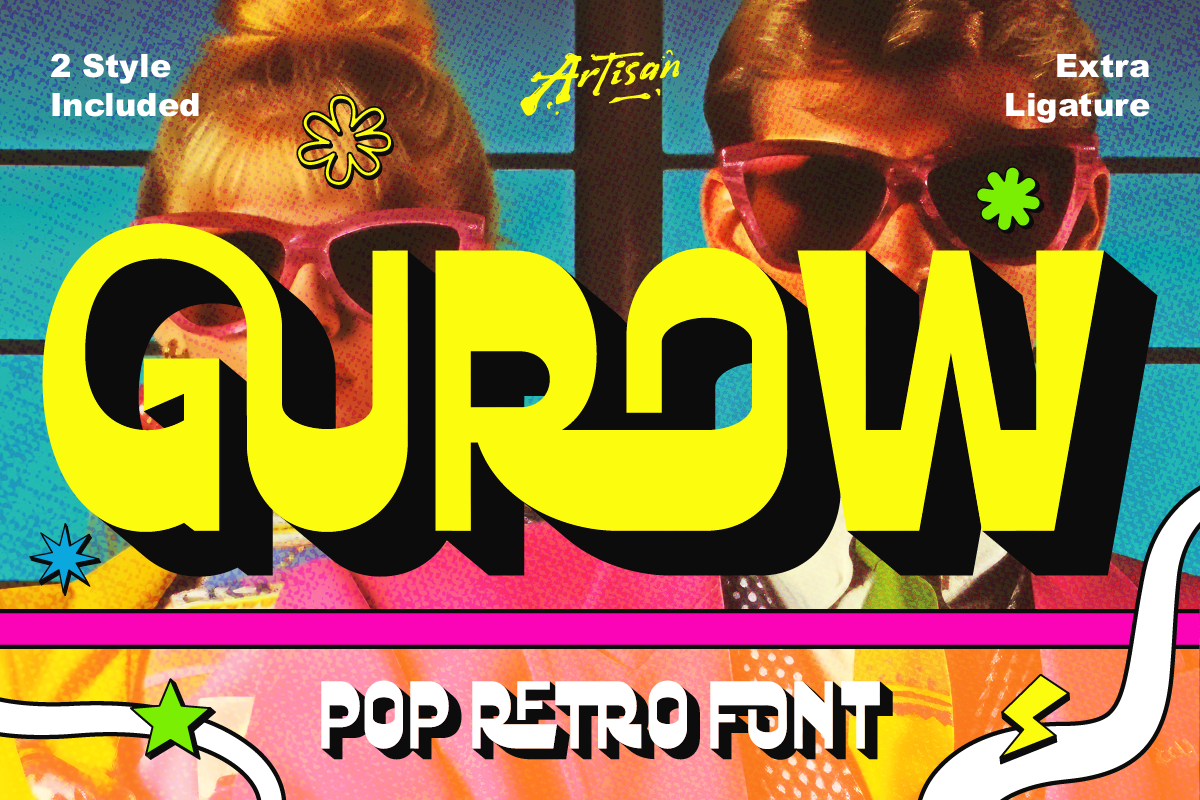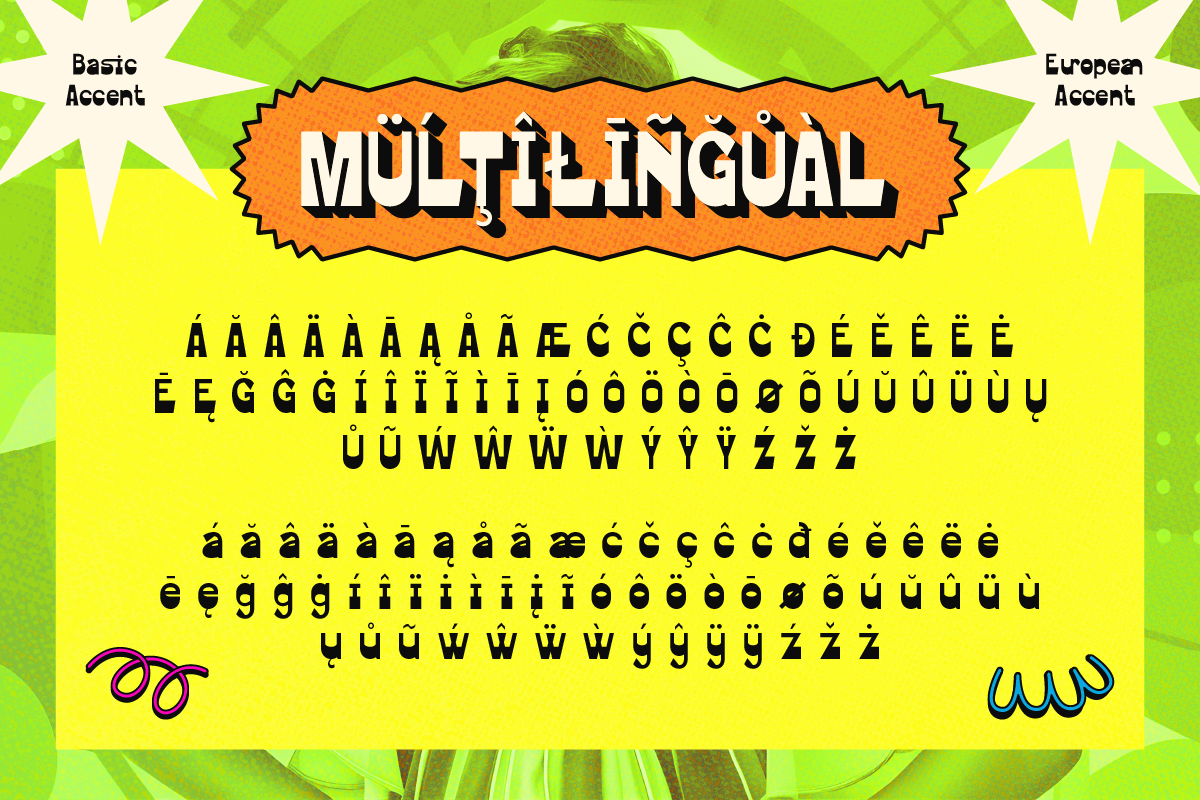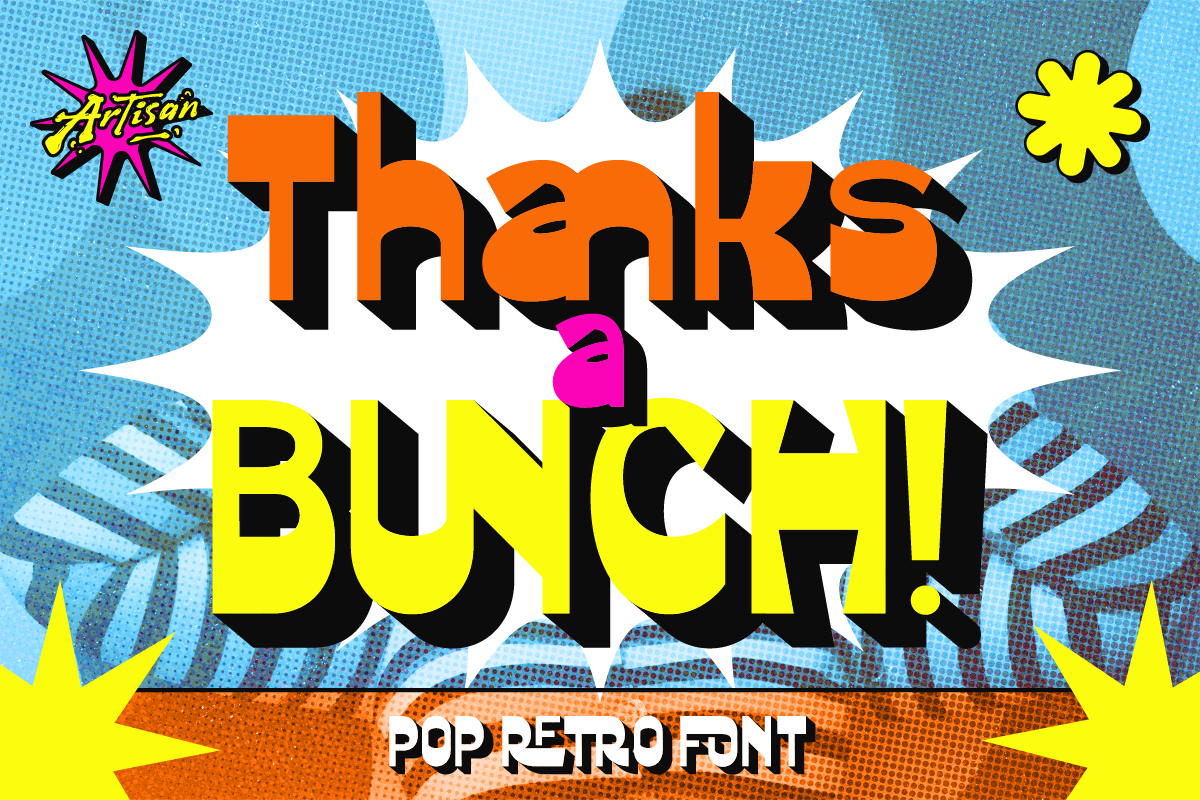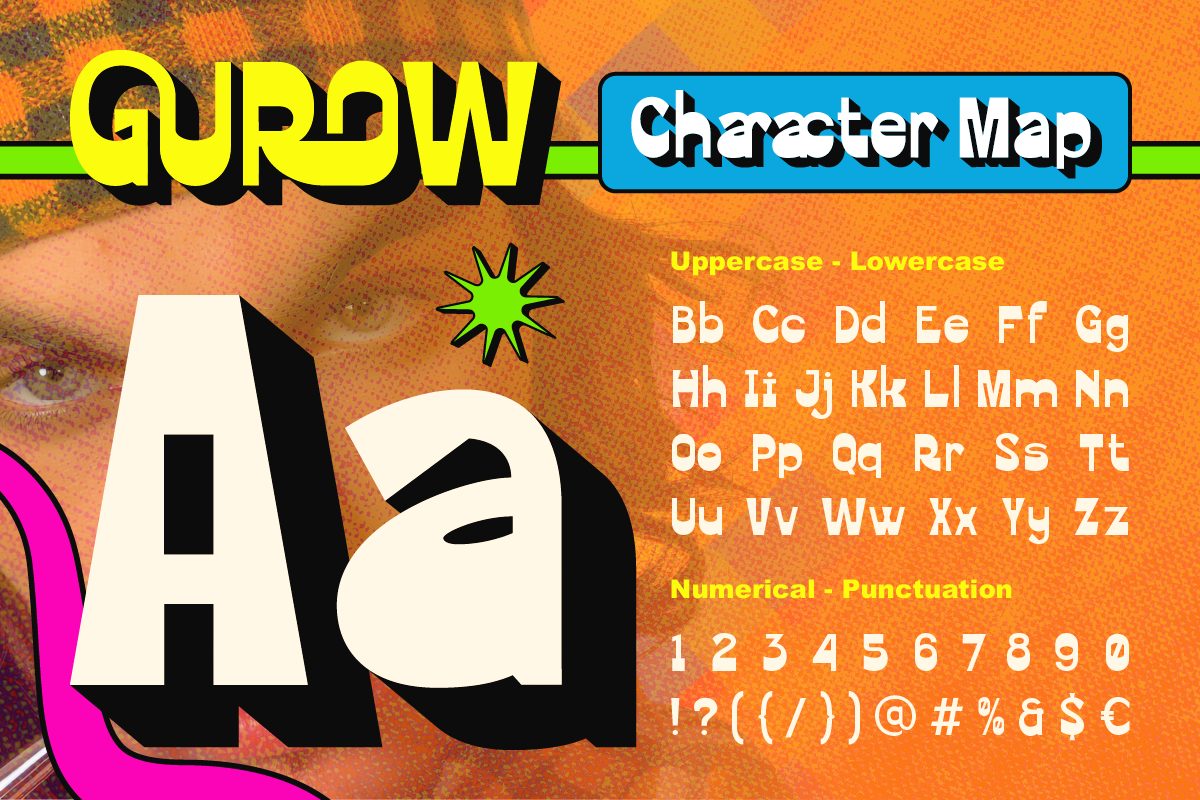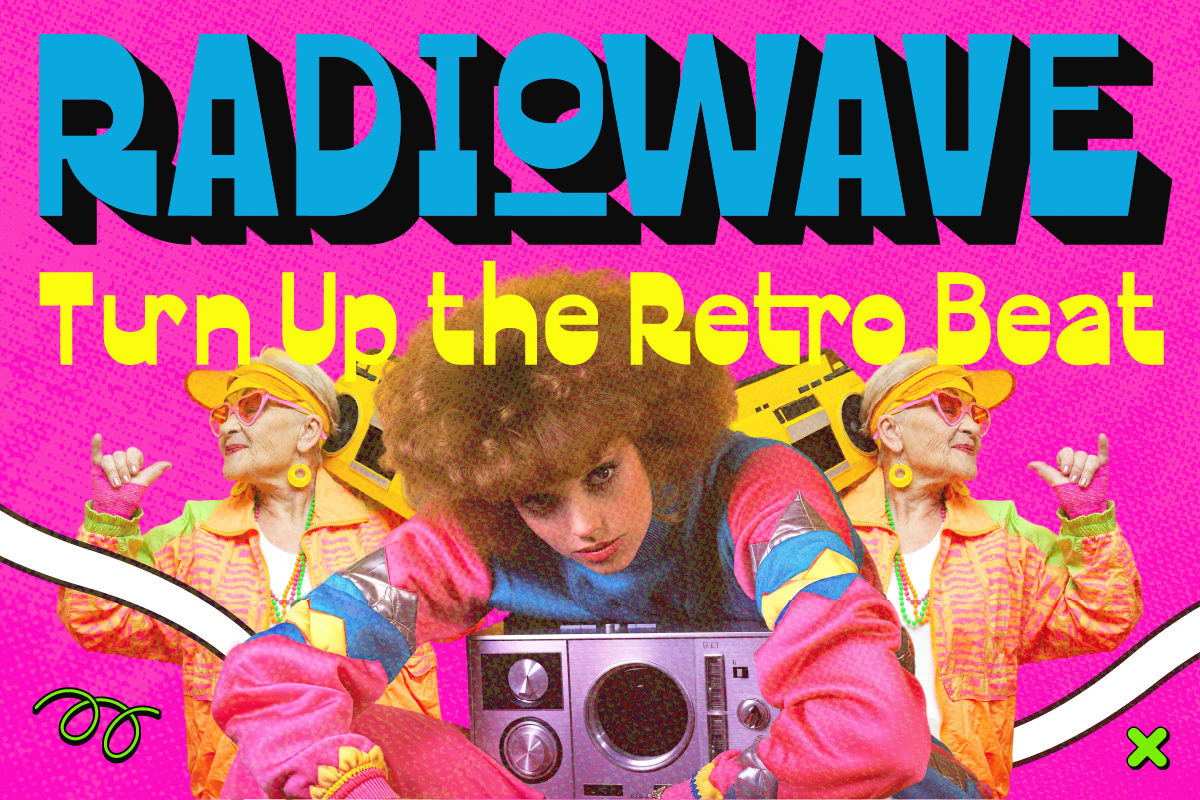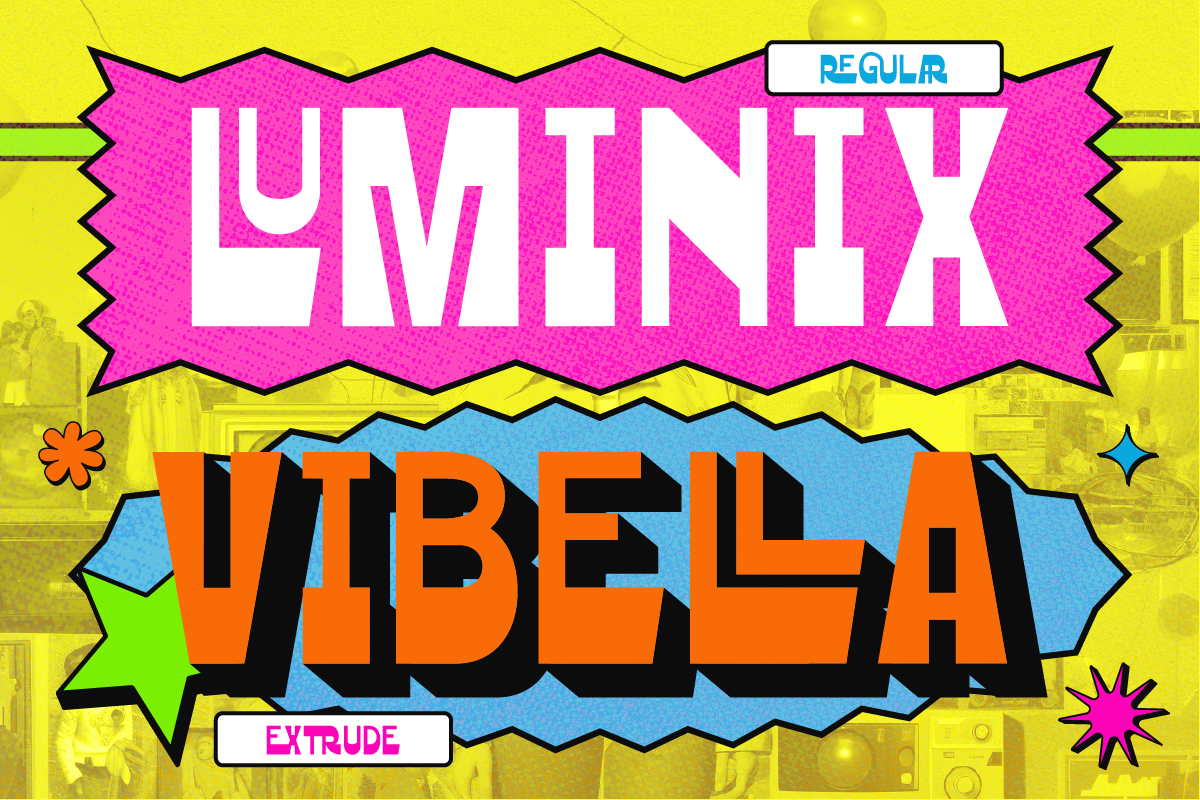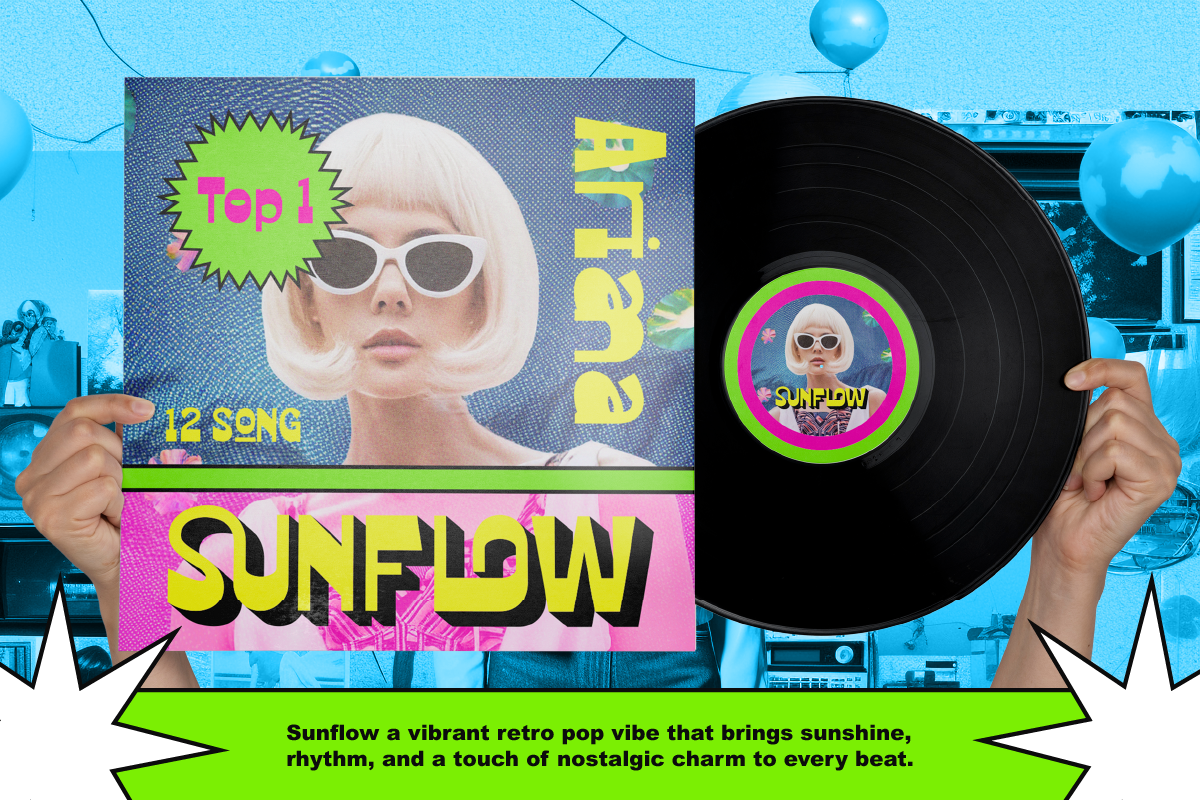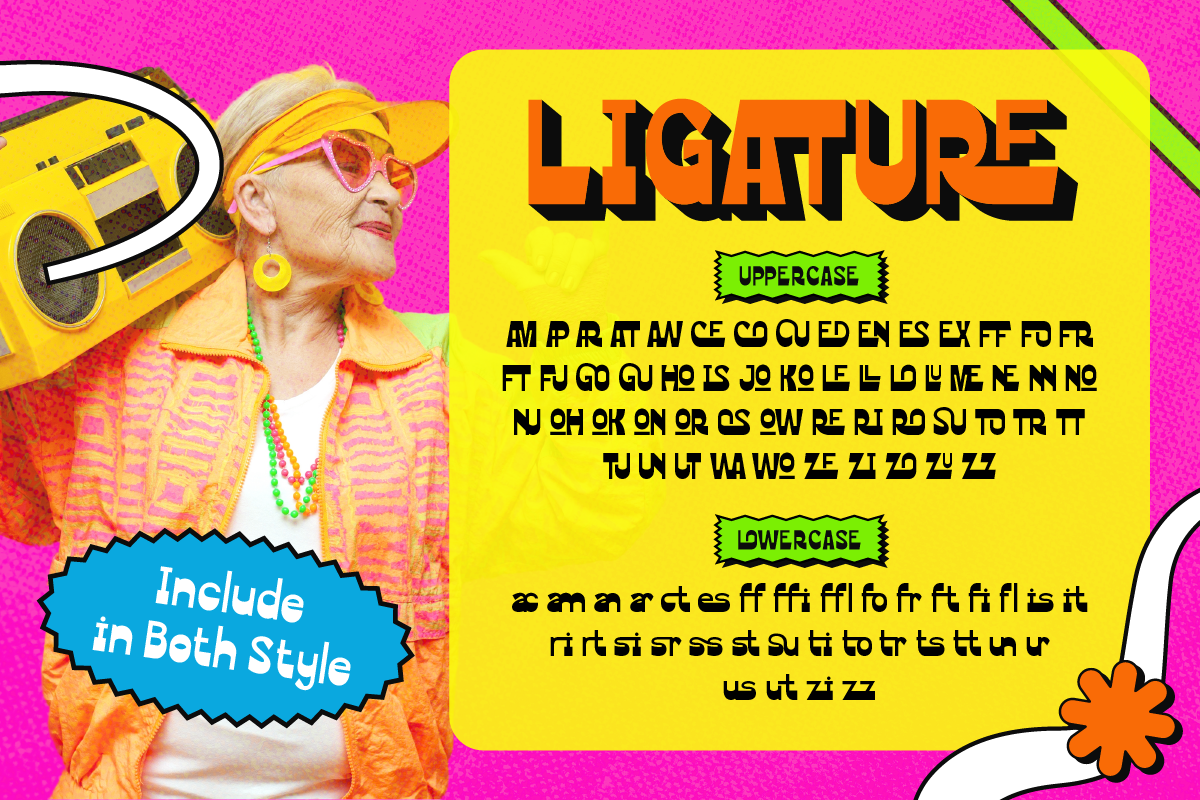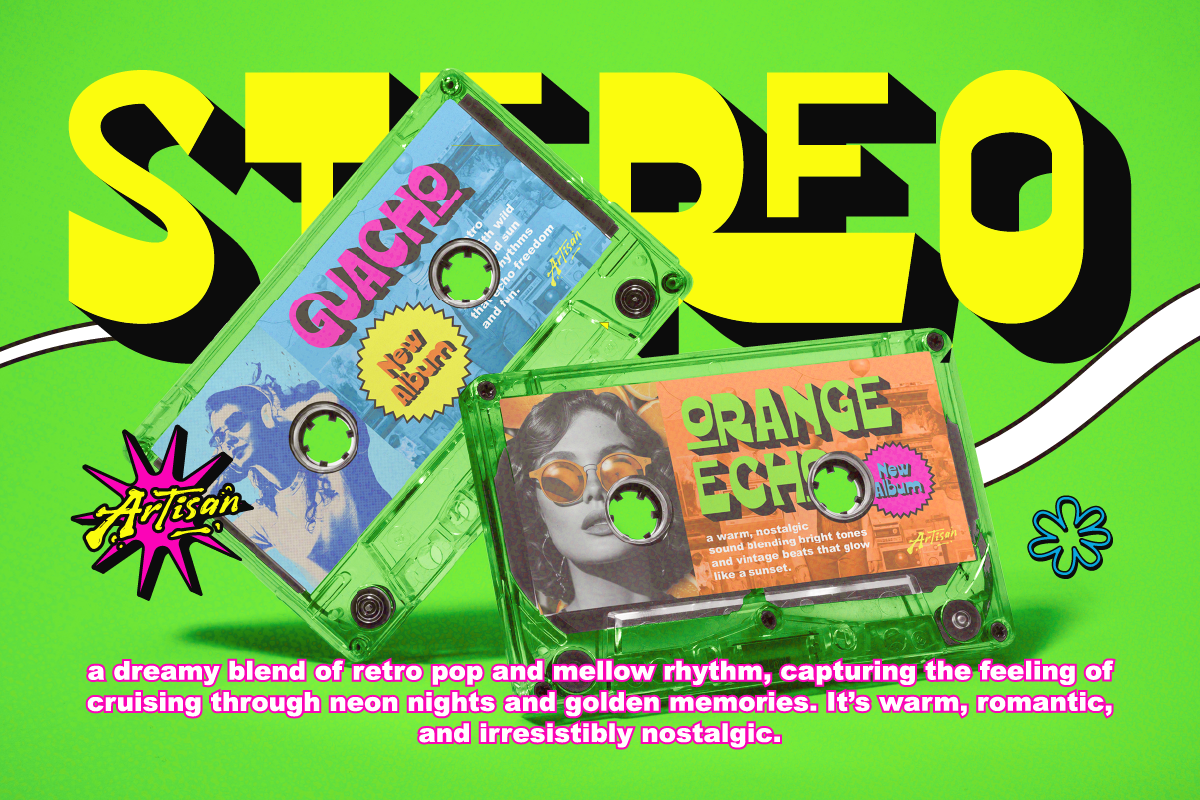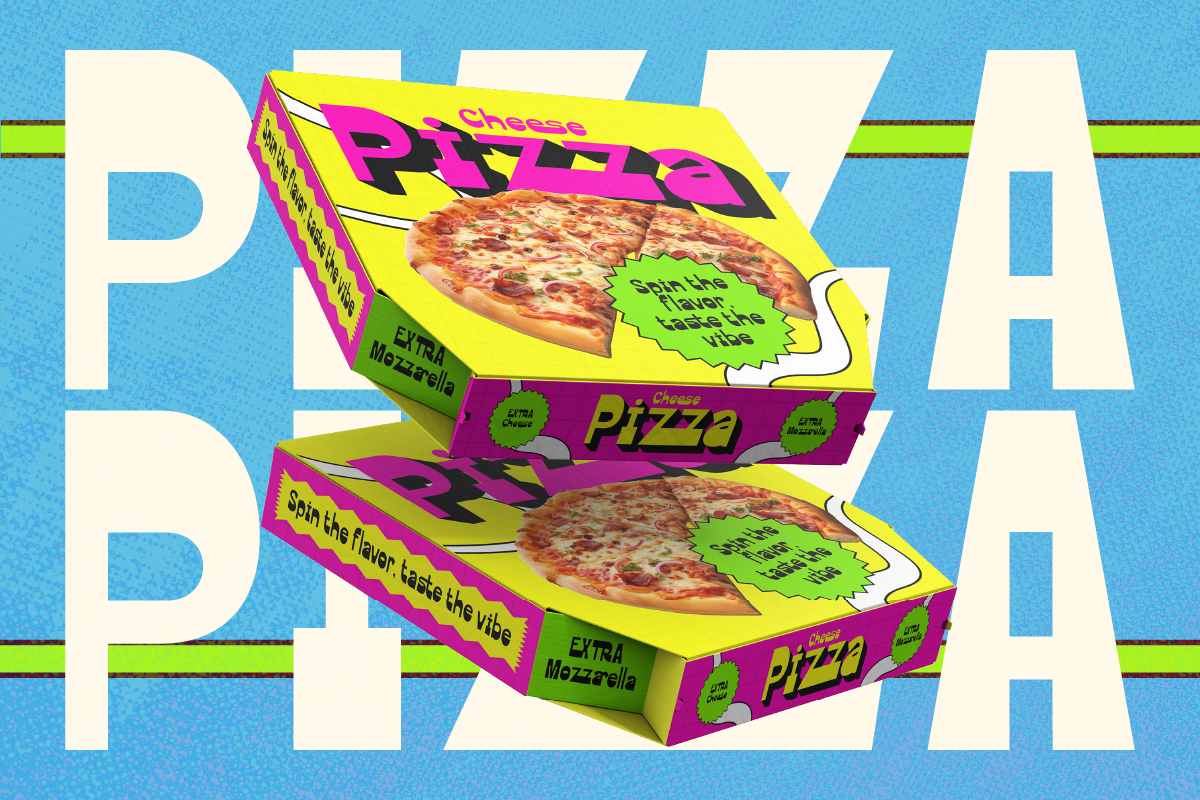
Gurow
REGULAR
EXTRUDE
Say hello to Gurow — a bold pop retro font that brings back the wild energy of the ‘80s with a modern twist. This font doesn’t play by the rules — it’s loud, vibrant, and full of attitude. Perfect for anyone who wants their design to stand out like a neon sign in a sea of monotone.
Gurow comes with 2 styles (Regular & Extrude) and extra ligatures, giving you that extra spark to make your titles, posters, album covers, or social media graphics totally pop. It’s the kind of font that screams fun, freedom, and rebellion — just like the retro icons who broke every rule and made their own style.
Turn up the retro beat, grab your colors, and let Gurow do the talking.
Your design is about to get way cooler.
Perfect for:
• Eye-catching posters & retro event flyers
• Album covers, music artwork & vinyl designs
• Magazine headlines with a bold teen vibe
• Streetwear branding & fashion campaigns
• YouTube thumbnails & content creators
• Instagram posts, reels covers & carousels
• Creative ads that need loud, standout typography
• Logo designs with a funky retro twist
• Packaging design for trendy or youth brands
• Stickers, merch & print-on-demand products
• Party invitations & festival graphics
• Editorial layouts with playful attitude
• Gaming visuals & pop culture designs
• Branding projects that want a rebellious edge
• A – Z set (Uppercase & Lowercase)
• Number
• Ligatures
• Punctuation
• Multilingual
• Gurow Character Map